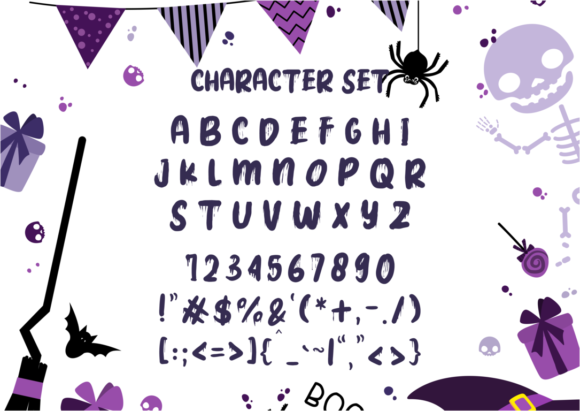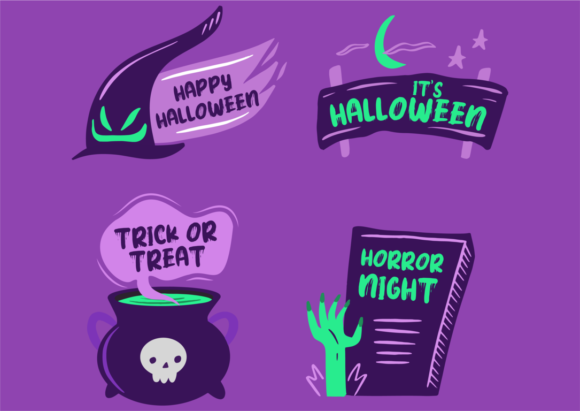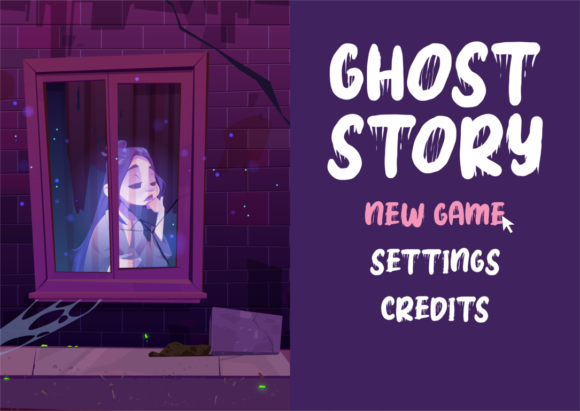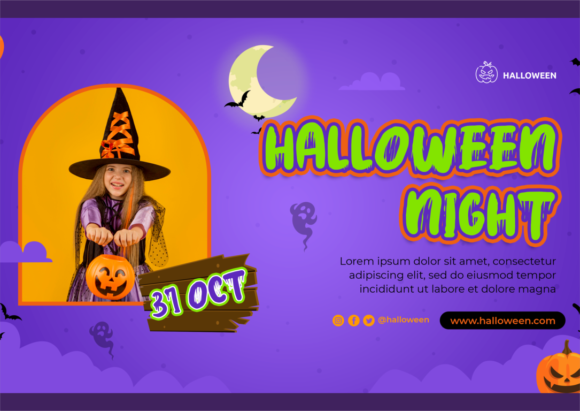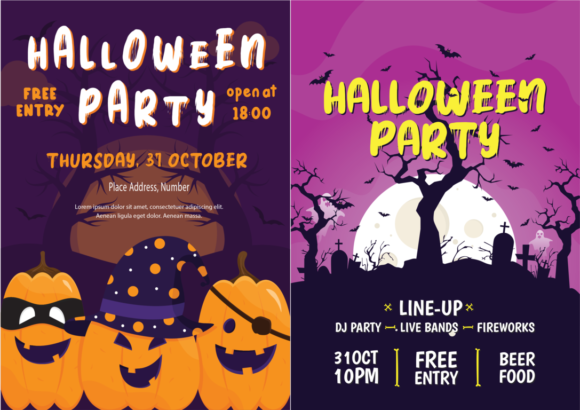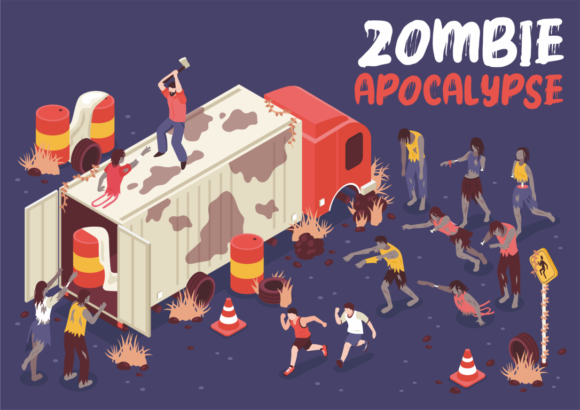
Get Ready to Cast a Spell with the Blood Brain Font
As a designer, have you ever found yourself stuck in a creative rut, searching for the perfect font to bring your spooky project to life? I know I have! There’s something about the eerie atmosphere of Halloween that sparks our imagination and pushes us to create something truly unforgettable.
Enter the Blood Brain Font, a display font designed to celebrate all things scary. This font is the perfect addition to any Halloween-themed project, from creepy invitations to haunting graphics. Its bold and edgy design is sure to make your creative vision stand out, and with its versatility, the only limit is your imagination. Whether you’re a seasoned designer or just starting out, the Blood Brain Font is a valuable tool in your arsenal, waiting to unleash its full potential and help you create something truly terrifying – in the best possible way, of course!
Blood Brain Font Key Features
- Unique Characteristics: This font features a unique blend of organic and futuristic elements, with intricate details and subtle texture, making it perfect for designs that require a touch of edginess.
Blood Brain Font Review
At first glance, the Blood Brain font is quite striking. I appreciate its bold, avant-garde aesthetic, which could be a great fit for certain design projects. ✨ Its unique letterforms and bold lines are sure to grab attention and add a touch of edginess to any design.
One of the things that works well with this font is its consistency. From the uppercase letters to the lowercase, the font’s overall style is well-executed and cohesive. ✨ The font also works well in larger sizes, where its bold lines can create a dramatic effect.
However, there are a few limitations to consider. ⚠️ Firstly, the font may be too bold for some designs, where subtlety is key. Additionally, the font’s bold lines may not be suitable for designs that require a lot of fine detail or intricate typography.
Here are some specific things to consider when using the Blood Brain font:
- Use sparingly: The font’s bold lines may be overwhelming if used too extensively.
- Pair with care: The font may clash with certain design elements, so be sure to test it with different combinations.
- Consider the context: The font may be more suitable for certain design projects, such as posters or album art, than others, like business cards or resumes.
Overall, I think the Blood Brain font is a great addition to any designer’s toolkit, but it’s essential to use it thoughtfully and with consideration for the specific design requirements.
Tips for Getting the Most Out of the Blood Brain Font
Use the Blood Brain Font to add a touch of sophistication and elegance to your designs.
Pair the font with bold colors and striking visuals to create a memorable brand identity.
Experiment with different font sizes and styles to create visual interest and hierarchy in your designs.
Use the Blood Brain Font for:
Brand logos and identity